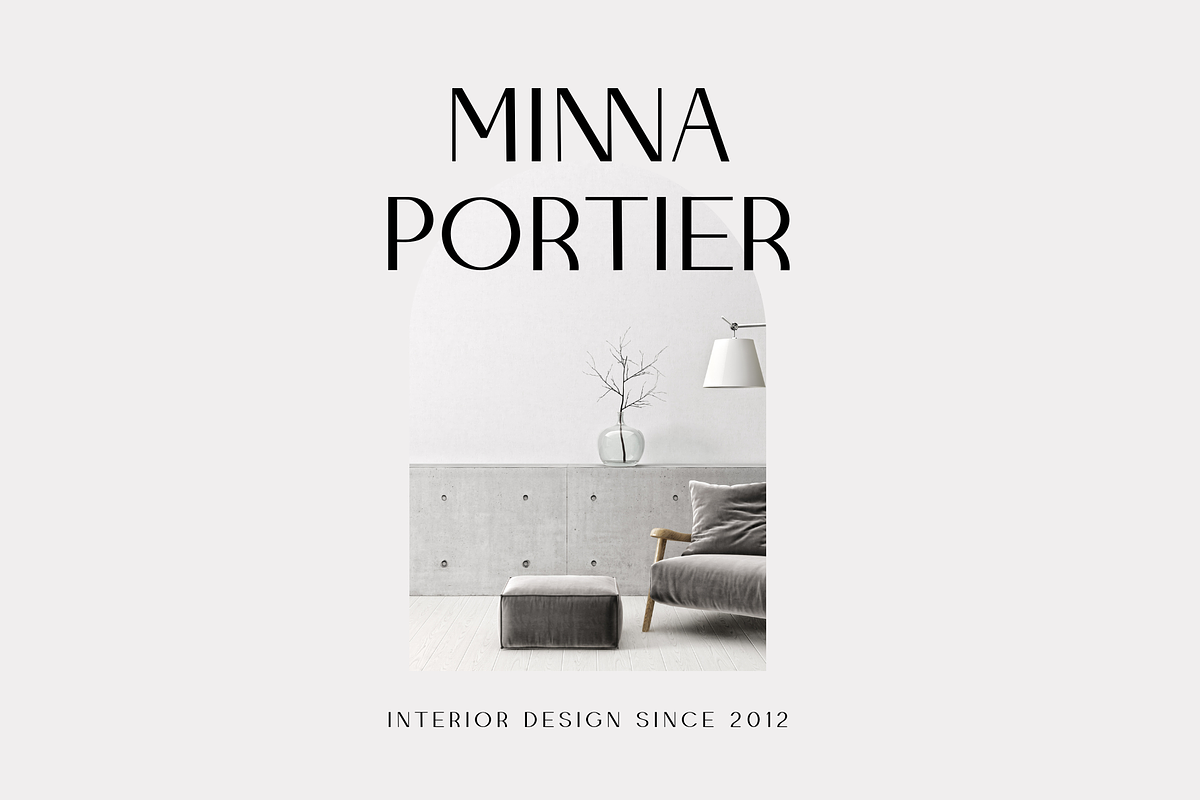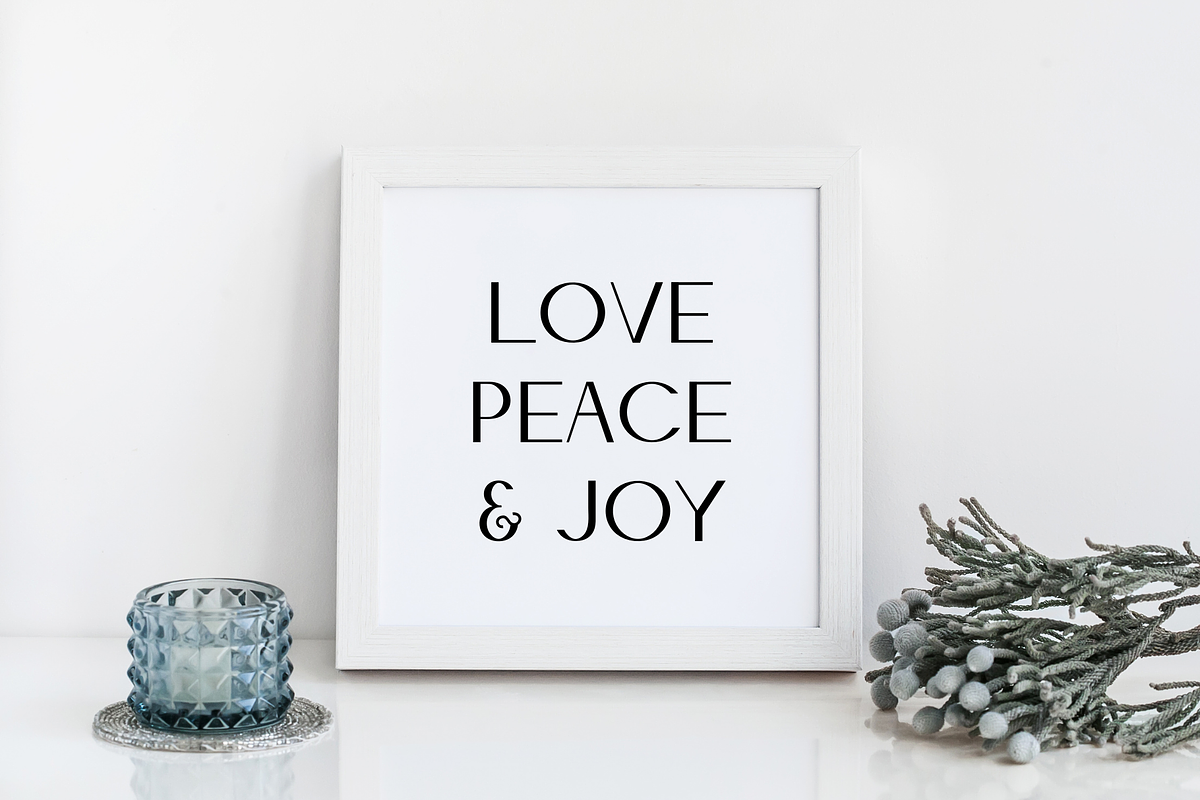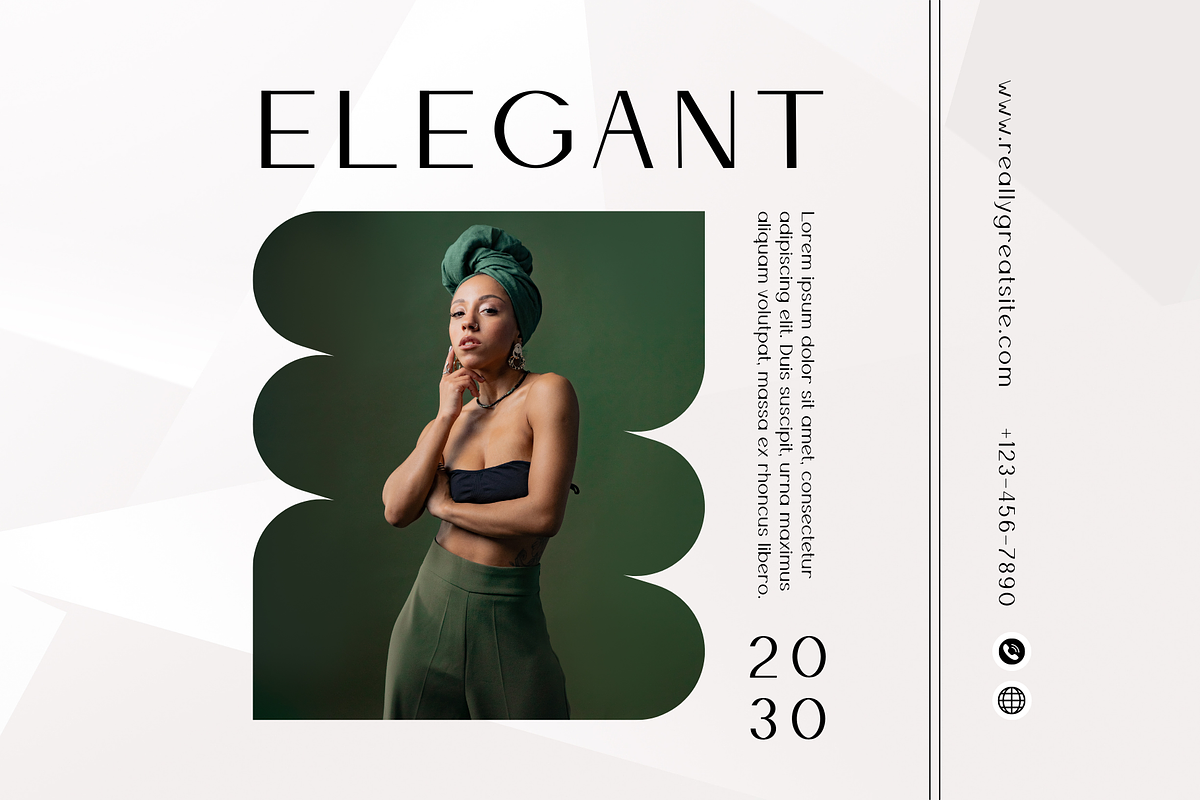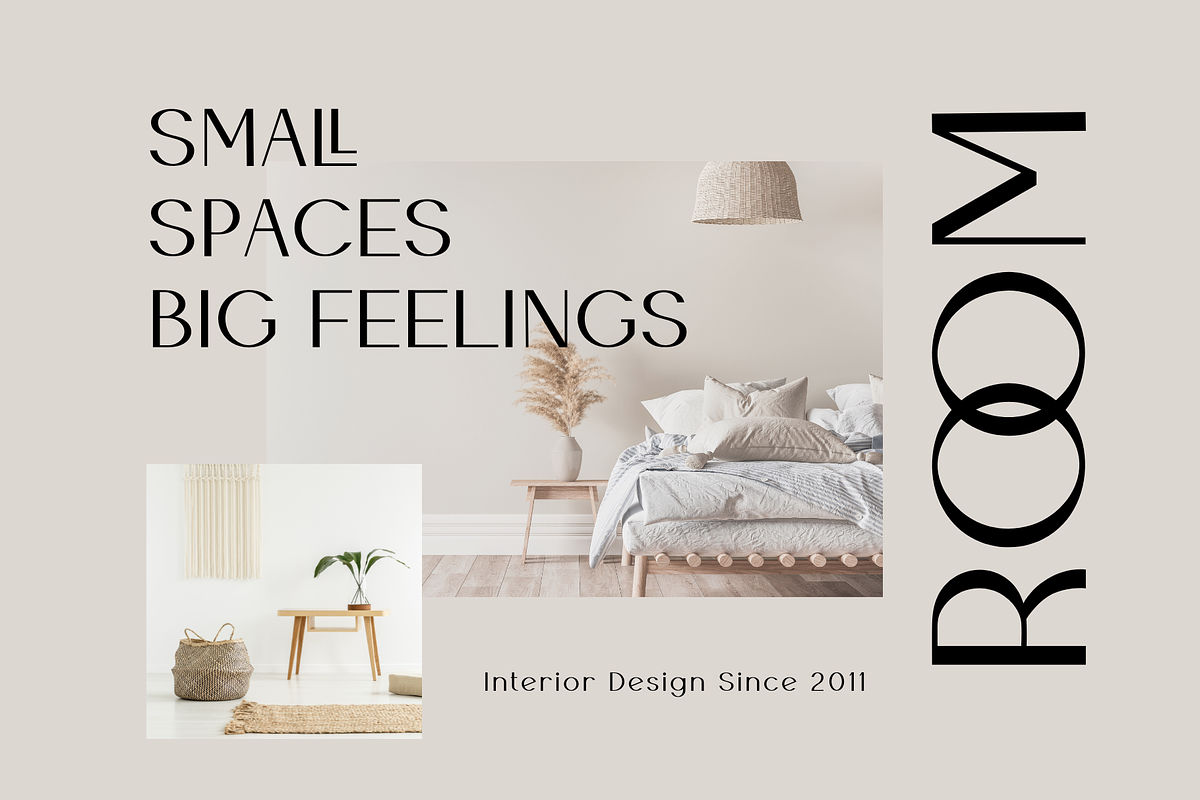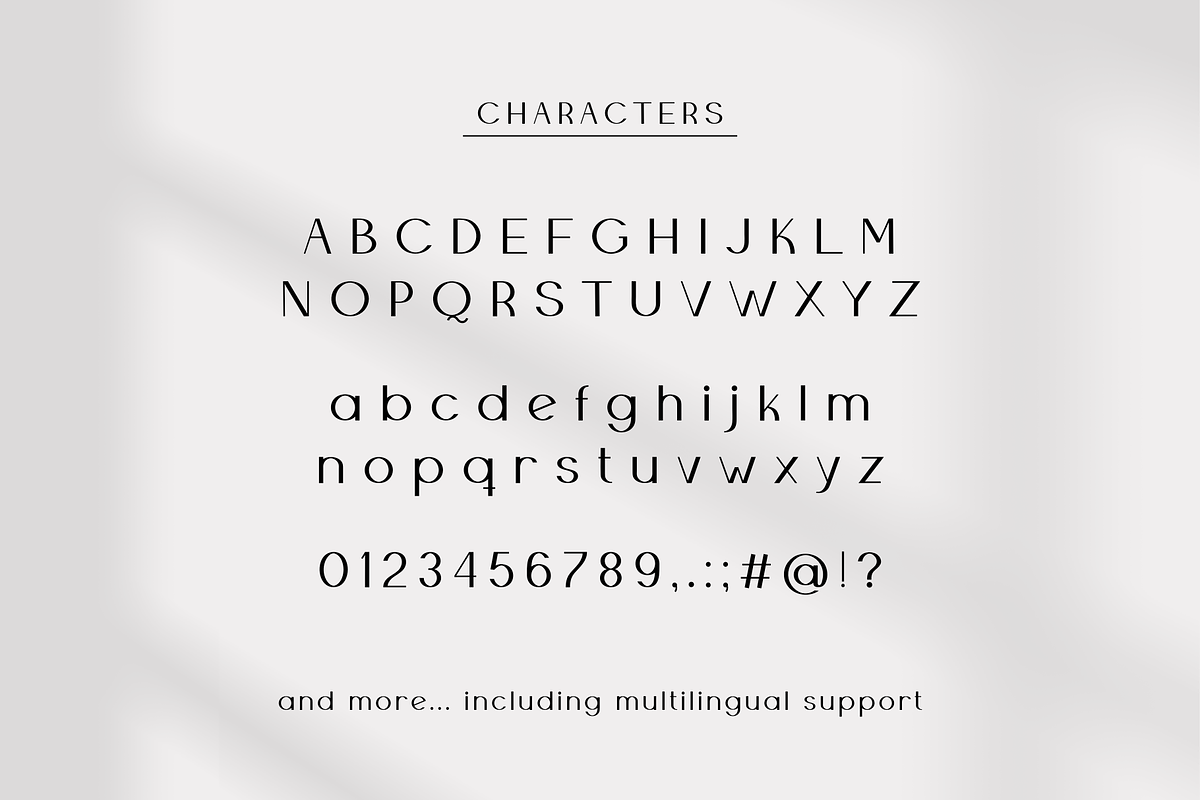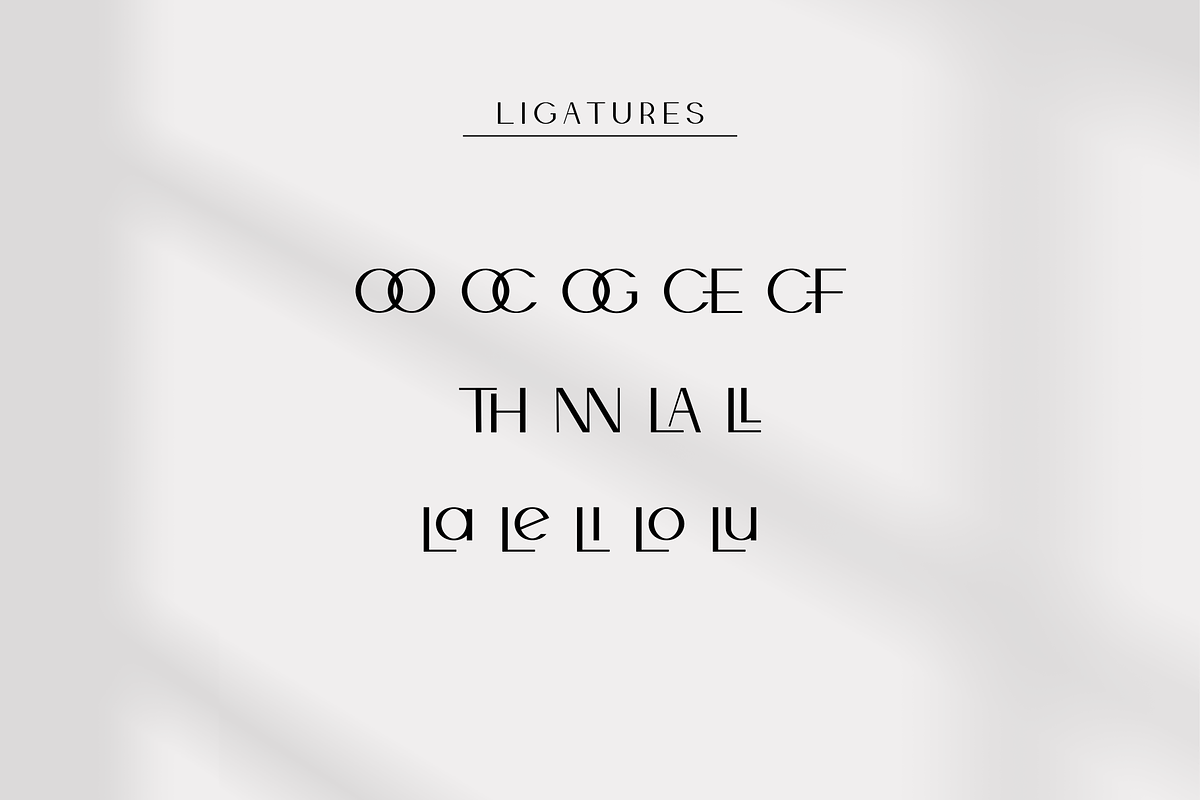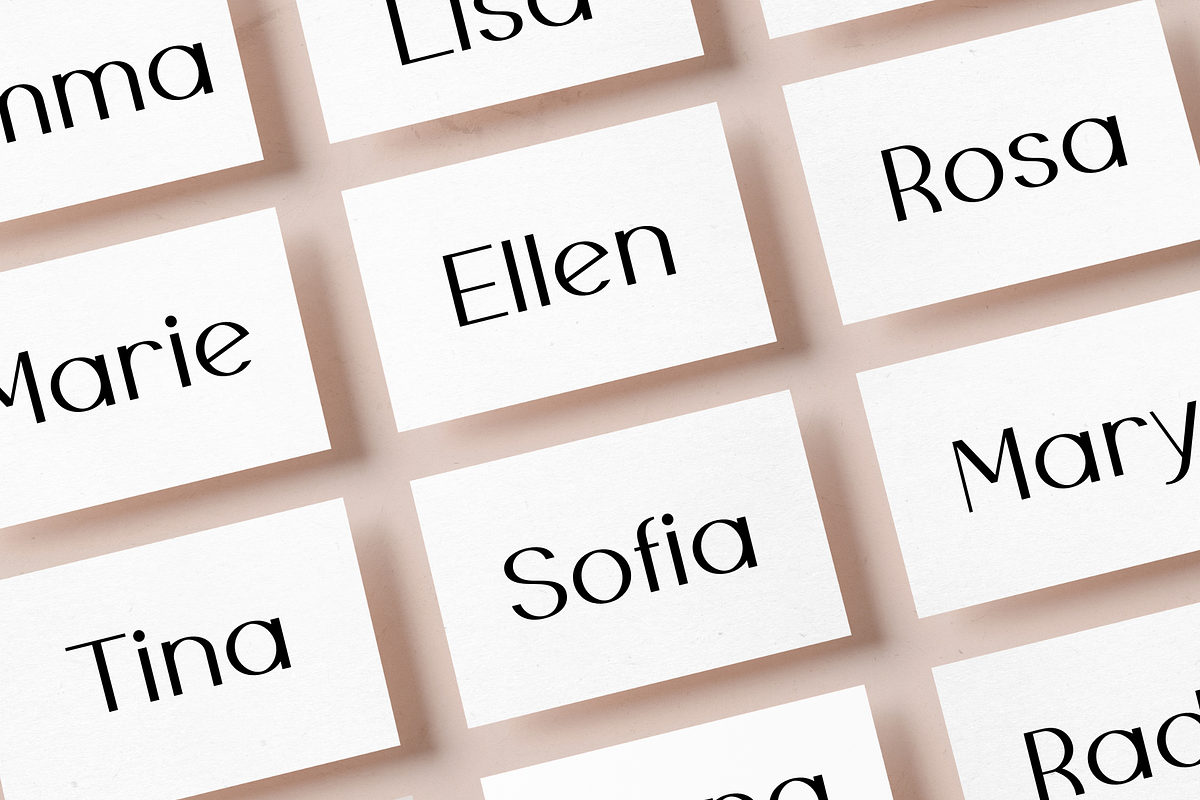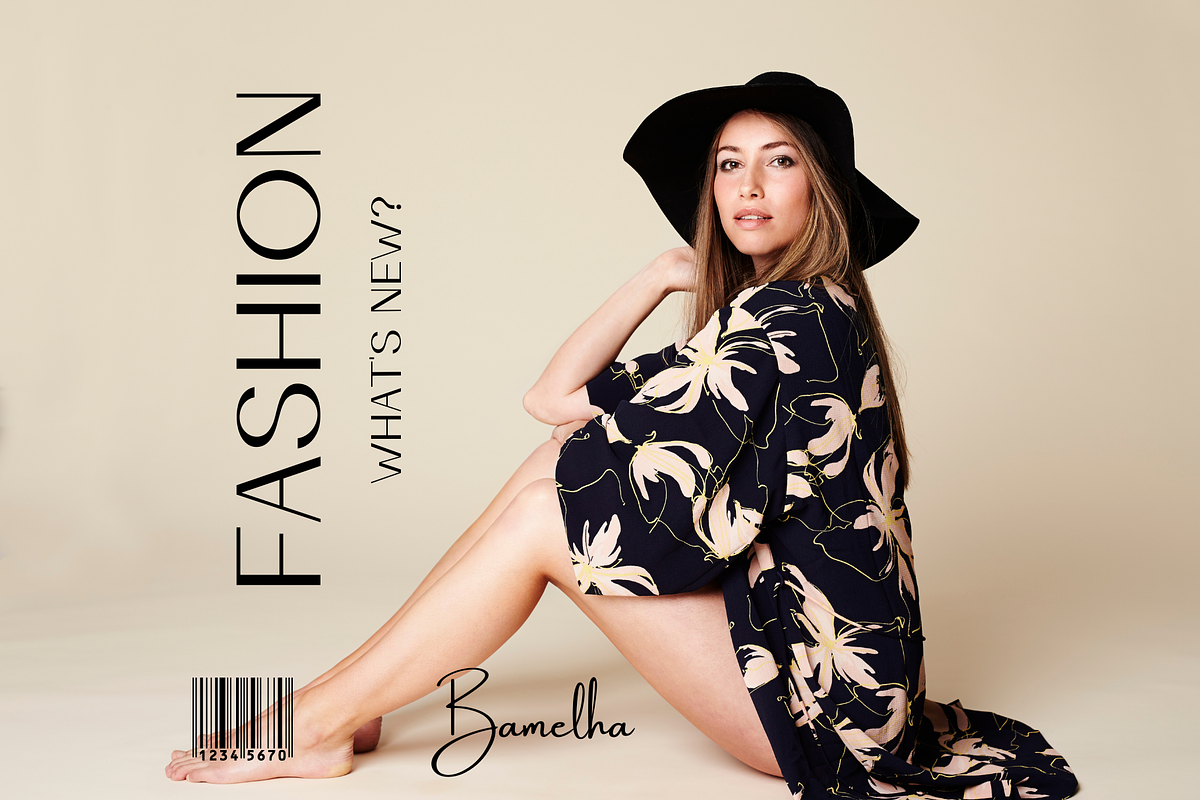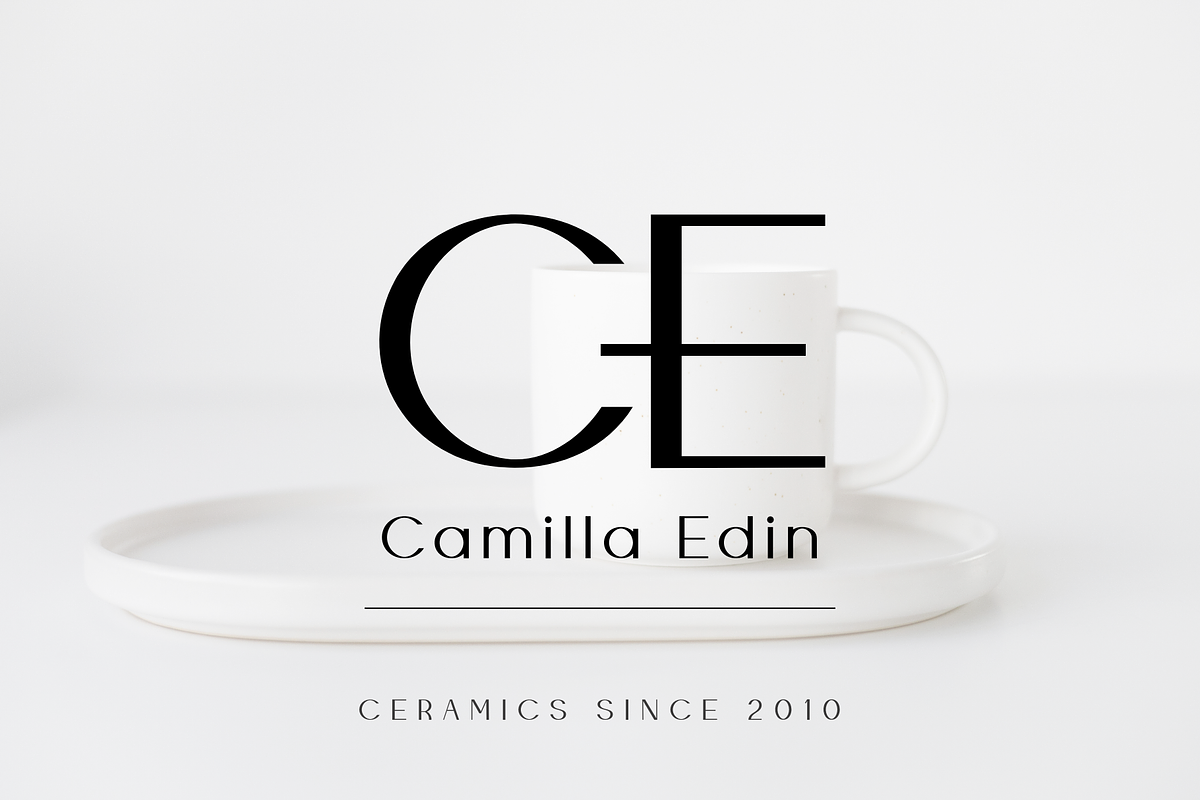
Kings and Queens
Kings and Queens is a modern sans serif font. With a clean and contemporary design, it's a great choice for any project that needs a professional touch. But don't let its simplicity fool you – this font also includes ligatures, giving you some options to add a bit of flair to your design. And with multilingual support, you can use this font to reach a global audience. Whether you're working on a website, branding materials, or marketing campaigns, this font is sure to become a go-to in your design toolkit.